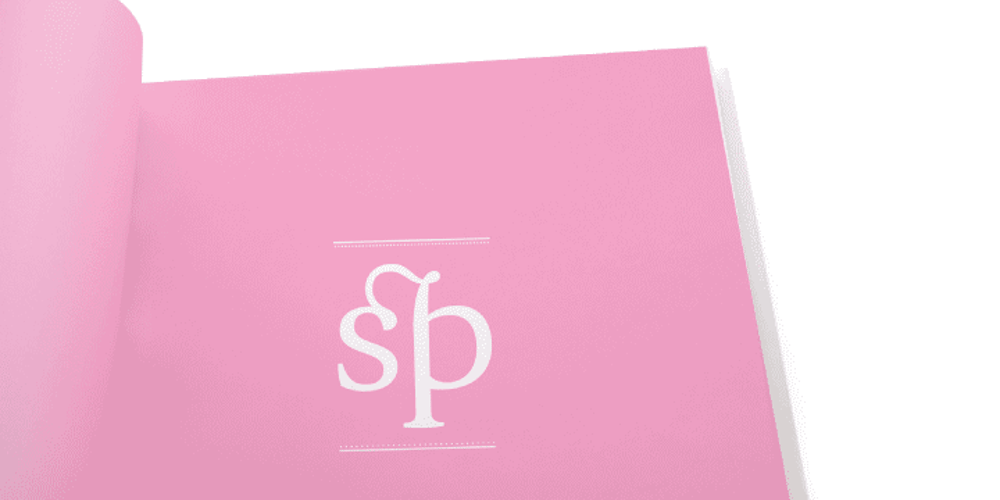
ALS Meringue
ALS Meringue font
ALS Meringue Font Family was designed by Olga Balina, Taisiya Lushenko and published by Art. Lebedev Studio. ALS Meringue contains 2 styles and family package options. Meringue, a transitional serif face, is designed specially for modern glossy magazines. It is ideal for fashion photography, fashion publications and mag covers, and can be used for headings and captions, as well as for body copy. The italic version, with its wave-like vertical strokes, creates yet more stylishly expressive feel. Text set in Meringue has an elegant weightless look, and the strongest effect can be achieved with high-quality printing. The typeface includes old style figures, ligatures, and alternative characters that allow creating truly versatile design by means of typography. Designers may also find Meringue perfect for beautiful presentations, invitations and other special occasion papers. Meringue was designed during the Type and Typography course at the British Higher School of Art and Design, supervised by Ilya Ruderman.